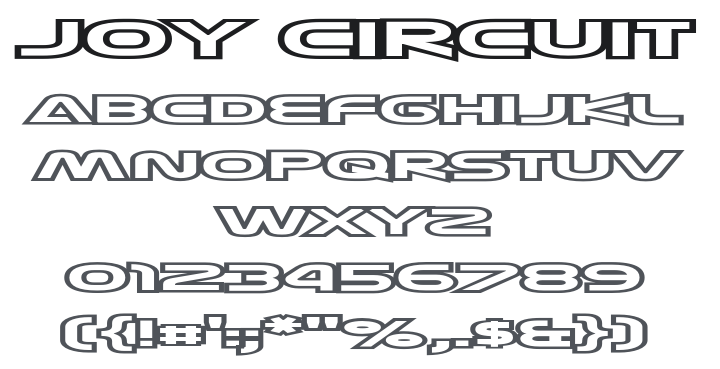
Joy Circuit Font
About Joy Circuit
Joy Circuit is a rounded, all-caps techno outline display typeface with clean, futuristic letterforms that feel simultaneously playful and space-age — bold shapes rendered in an open outline style that gives them a light, glowing quality. Its friendly geometry balances drama with approachability. Perfect for sci-fi logos, product packaging, billboard headlines, retro-futuristic branding, and any design needing modern, captivating techno flair.